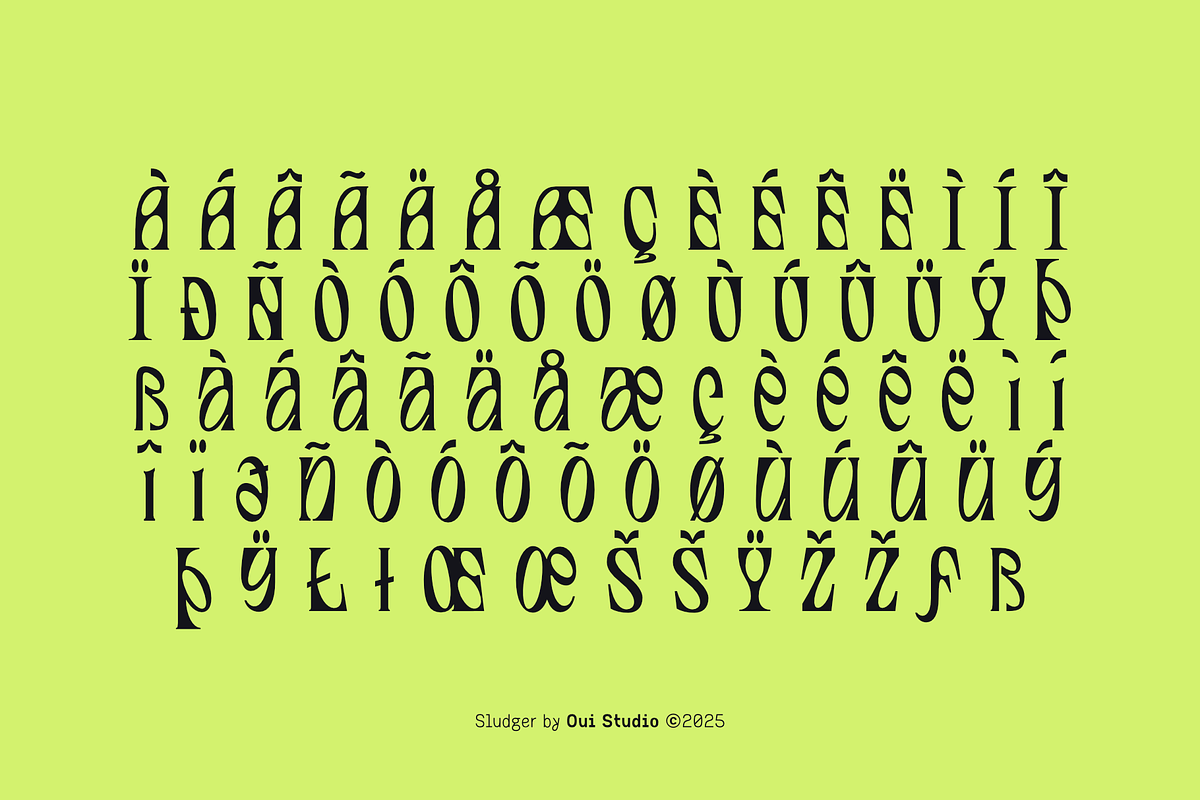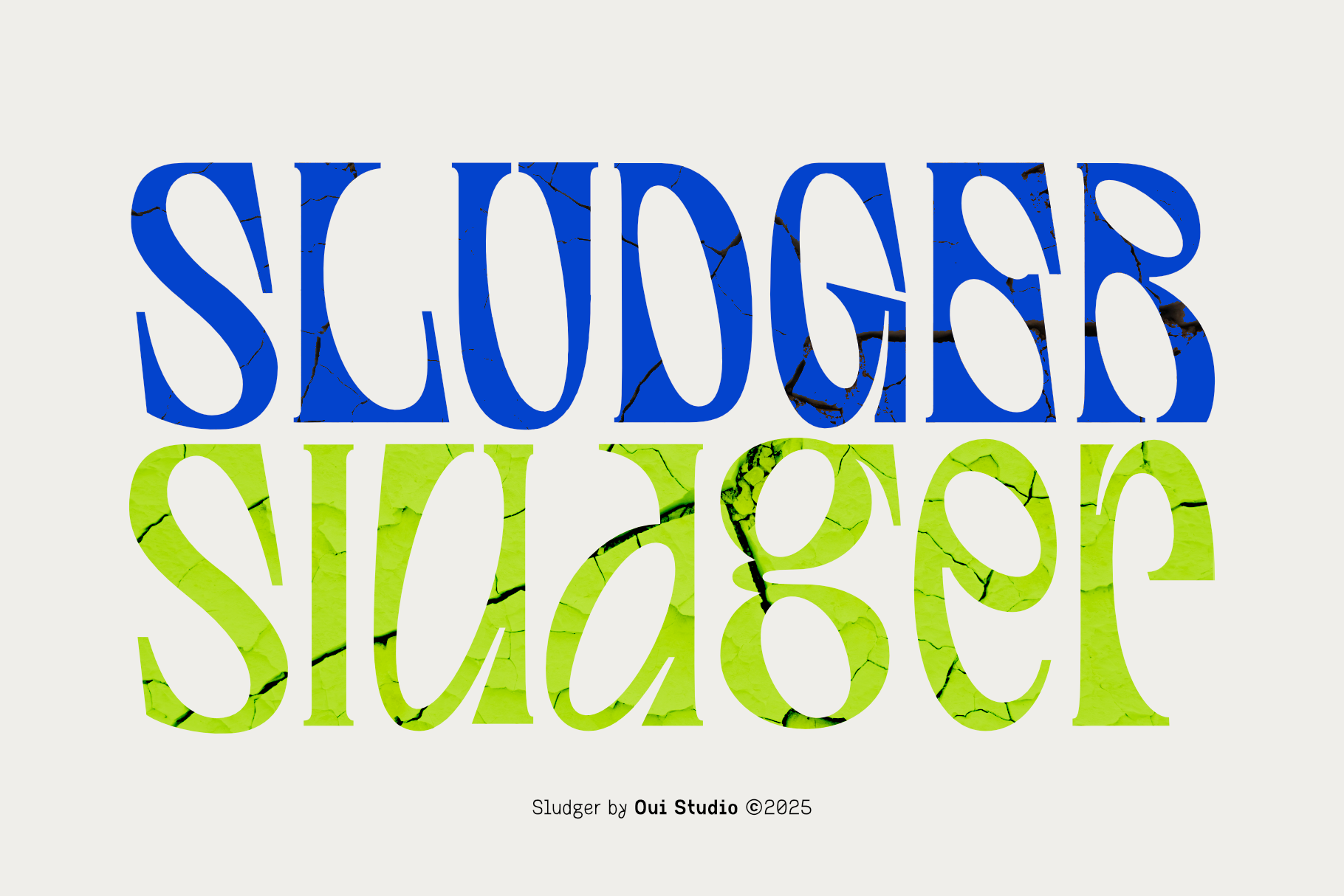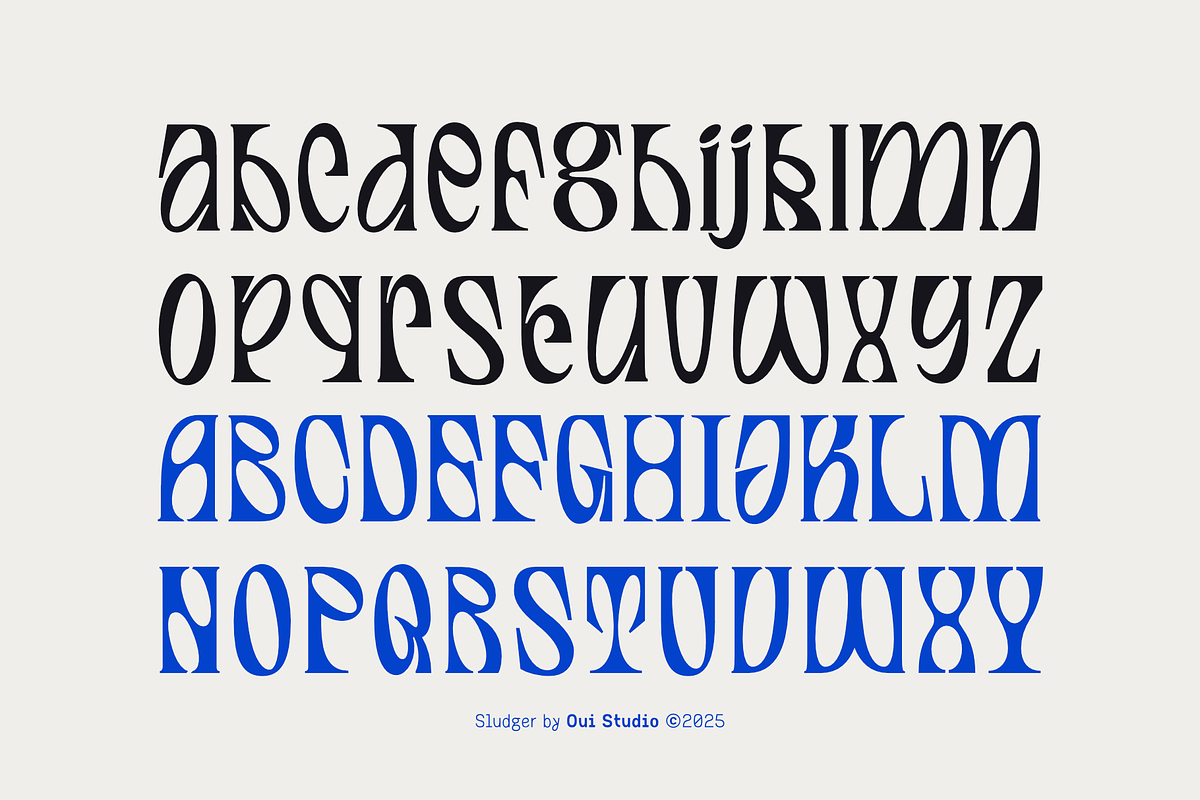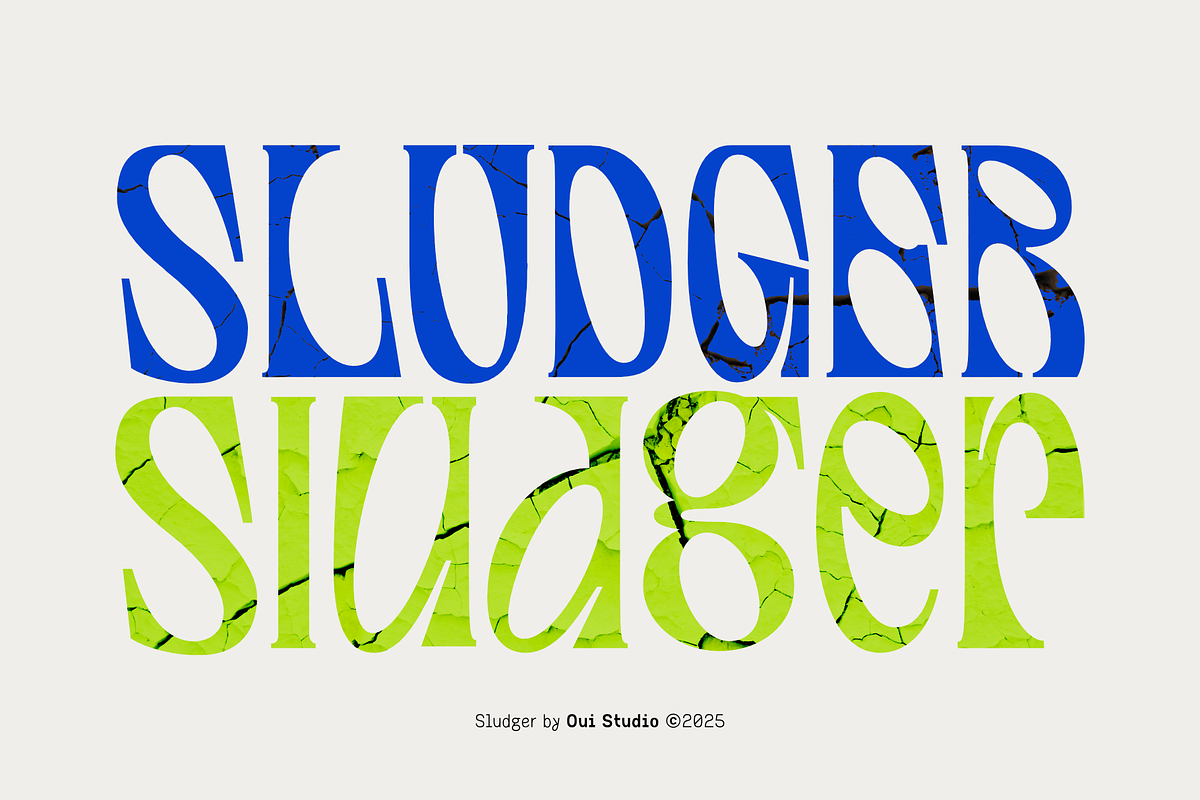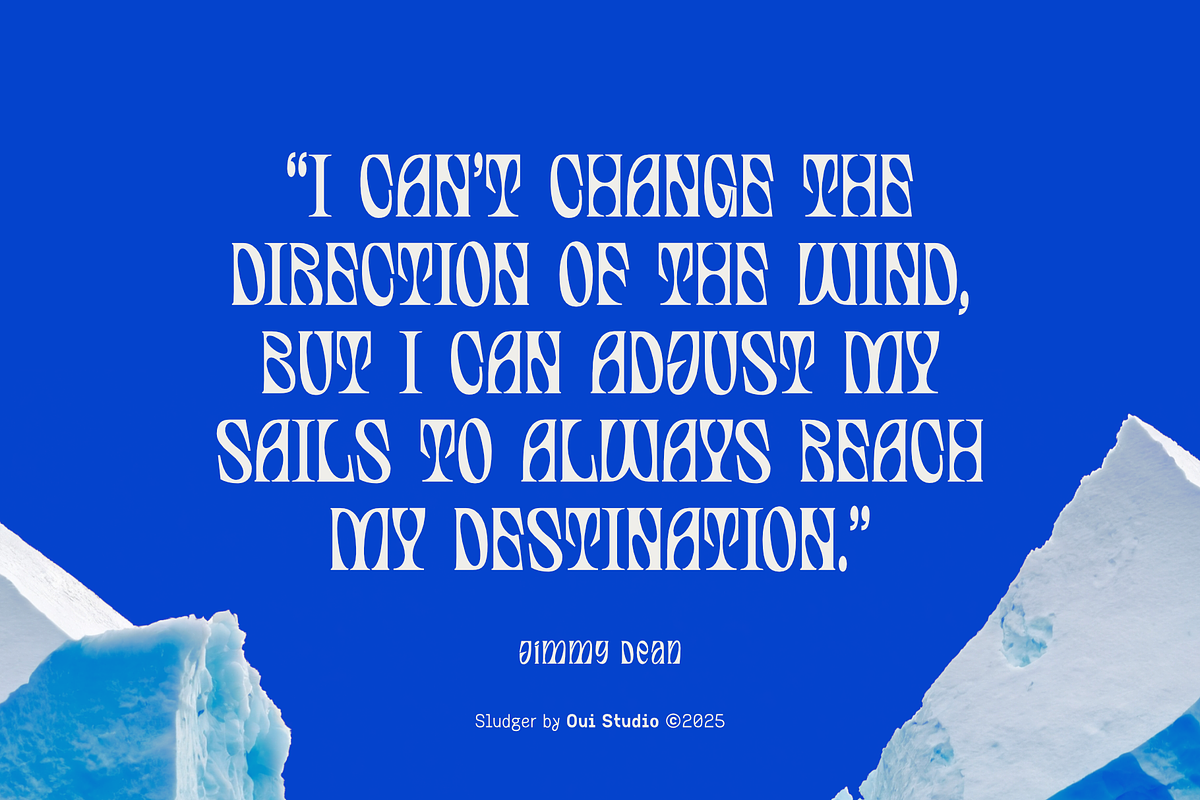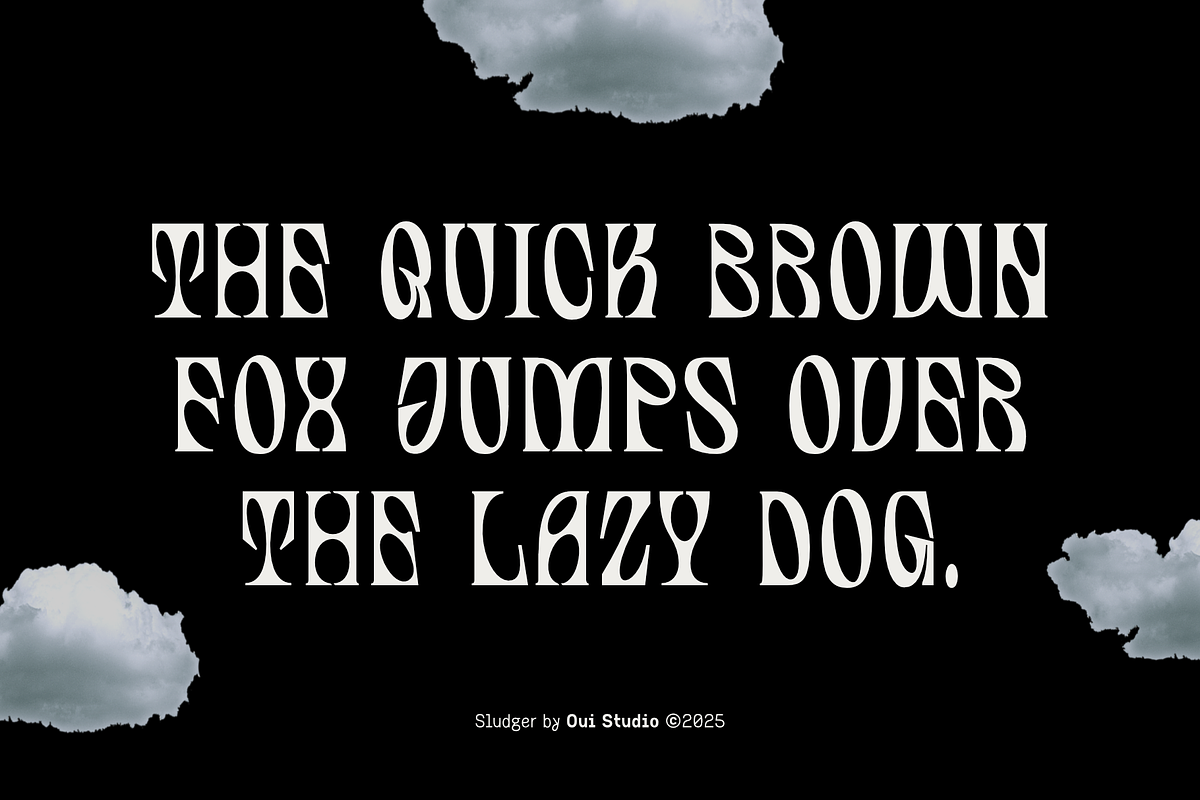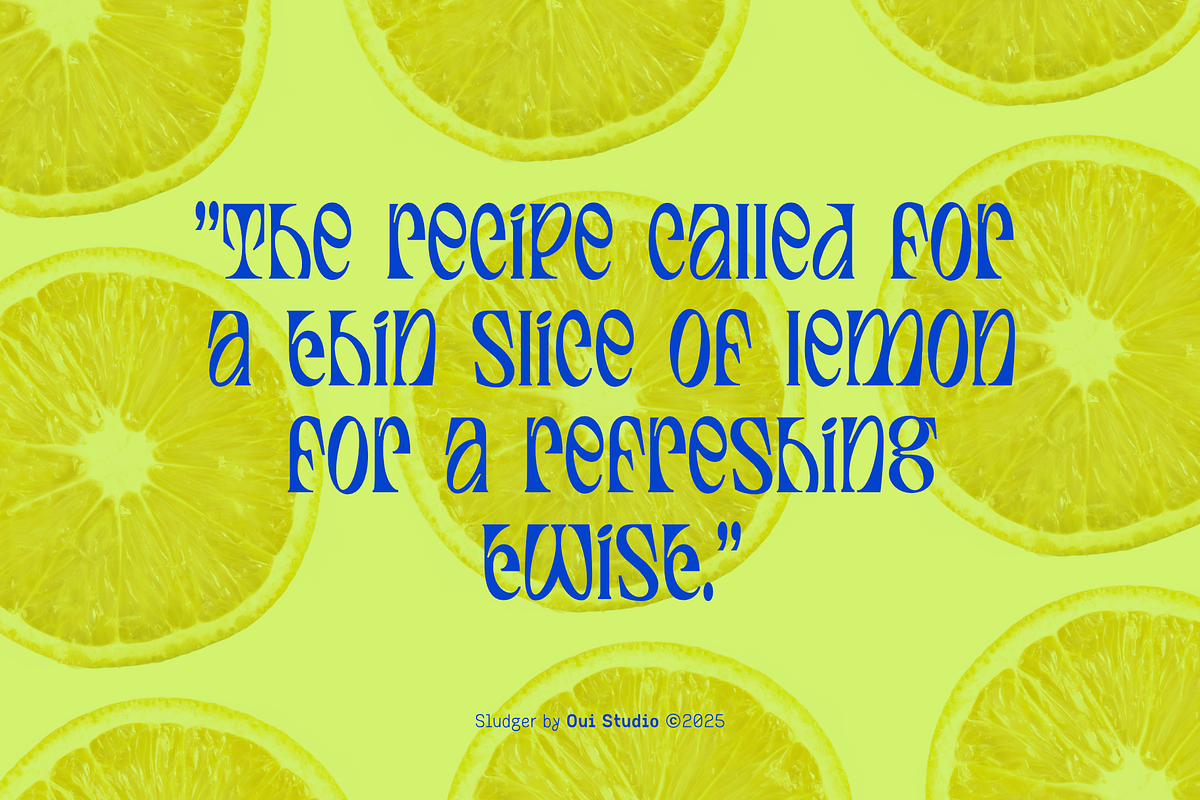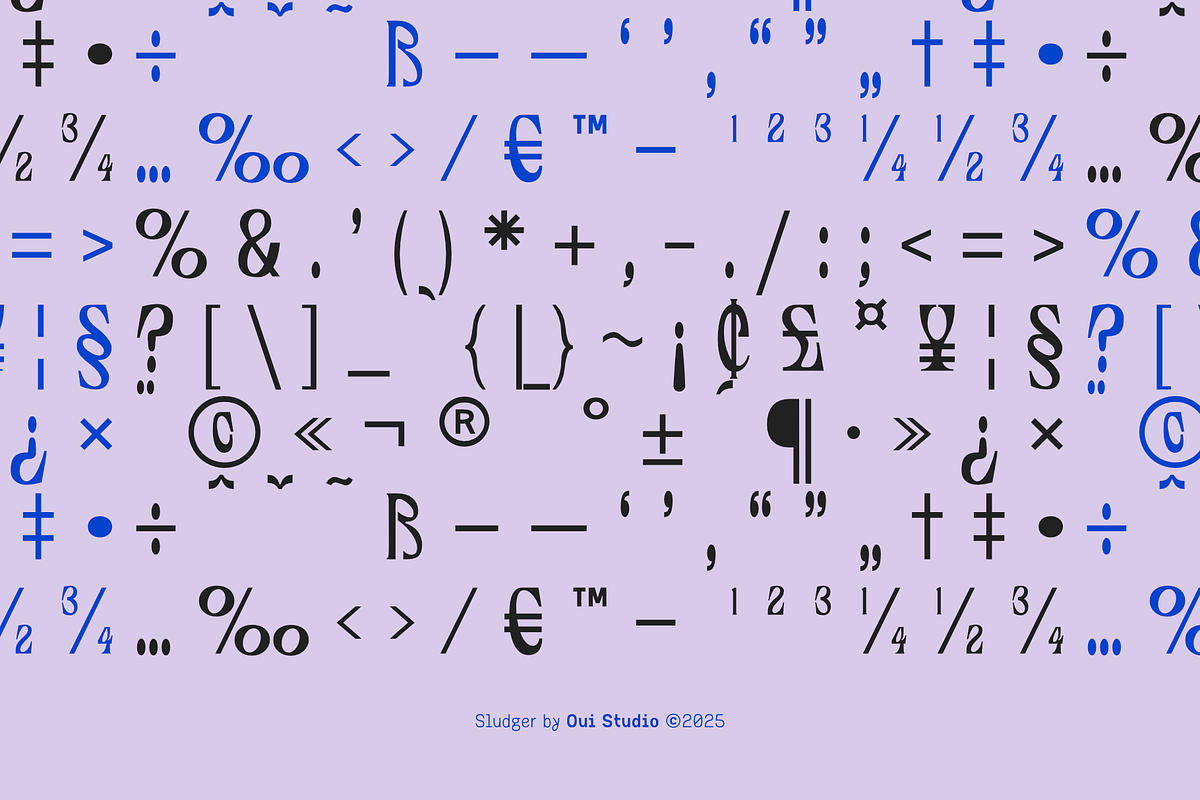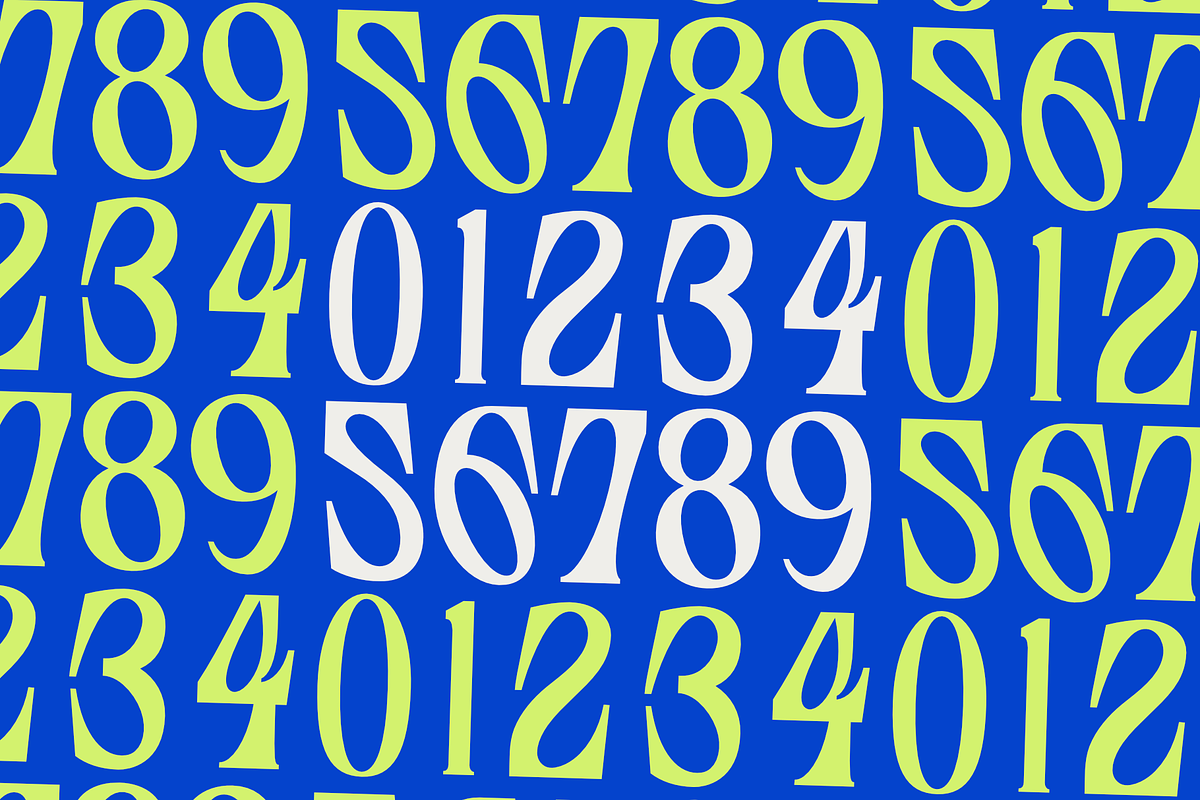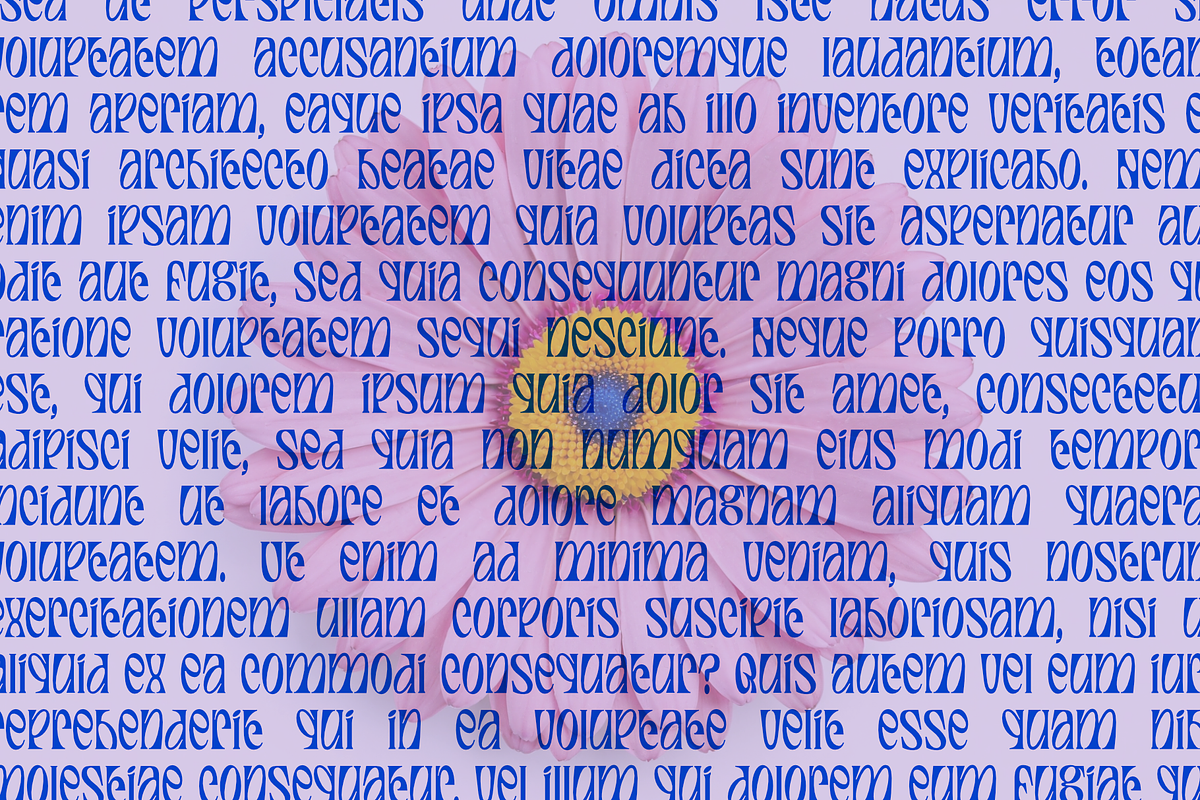
Sludger Edgy Display Font
Sludger is a bold and edgy typeface that captures the essence of urban grit and modern attitude. Its robust, unapologetic strokes and distinctive letterforms blend a raw, industrial aesthetic with subtle vintage influences, creating a unique visual language.
Ideal for branding, headlines, and designs that demand a strong, memorable presence, Sludger makes a powerful statement.
Its unapologetic design and creative versatility lend an unmistakable character to any project, ensuring your message stands out with confidence and style.